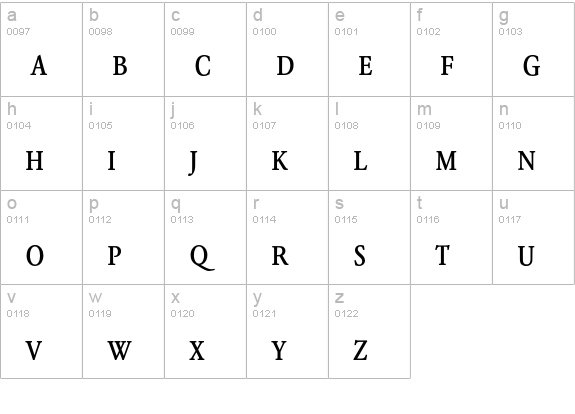
Garamond ConExpBQ Regular Font Details
Garamond ConExpBQ Regular is the standard, neutral variant in the Garamond typeface family \xE2\x80\x94 well suited to general body text, paragraphs, and standard typographic work.
Garamond ConExpBQ Regular font is a timeless and elegant typeface that exudes sophistication and refinement. Its classic design, inspired by the renowned Garamond typeface, effortlessly combines traditional elements with a contemporary twist, making it the perfect choice for projects that require a touch of class. With its well-balanced letterforms and delicate curves, Garamond ConExpBQ Regular font is highly legible and easy on the eyes, ensuring optimum readability across various mediums. Whether it's used for print materials such as books, magazines, or brochures, or for digital platforms like websites and presentations, this font will enhance the overall visual appeal of any project. What makes Garamond ConExpBQ Regular font even more appealing is the fact that it is freely available to download at FontsMarket.com. This means that designers, creatives, and typographers can easily access and utilize this exceptional font without any financial constraints. The freedom to use this font in both personal and commercial projects allows for endless possibilities, making it a valuable asset in any designer's toolkit. Furthermore, Garamond ConExpBQ Regular font's versatility shines through in its wide range of available weights and styles, ensuring that it can adapt to various design needs. From bold headers to elegant body text, this font can effortlessly handle any typographic requirement with grace and poise. In conclusion, Garamond ConExpBQ Regular font is a must-have for anyone looking to add a touch of timeless elegance to their designs. Its free availability on FontsMarket.com makes it easily accessible to all, allowing designers to elevate their projects with this exquisite typeface. With its classic charm and versatility, Garamond ConExpBQ Regular font is sure to make a lasting impression on any audience.